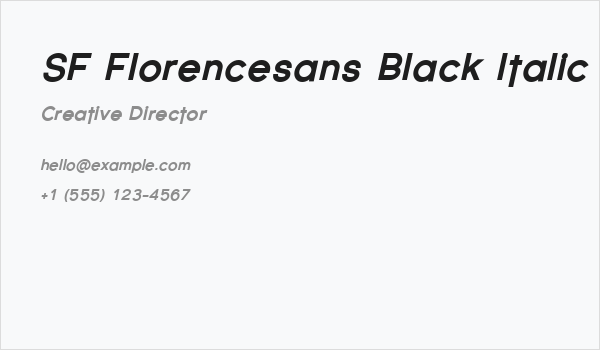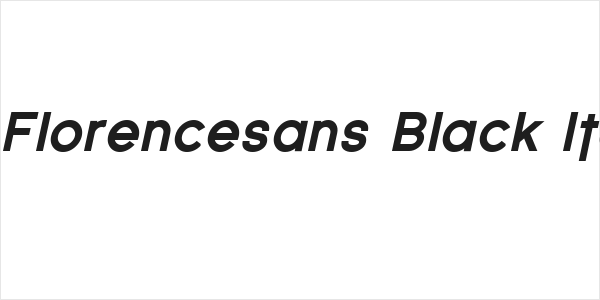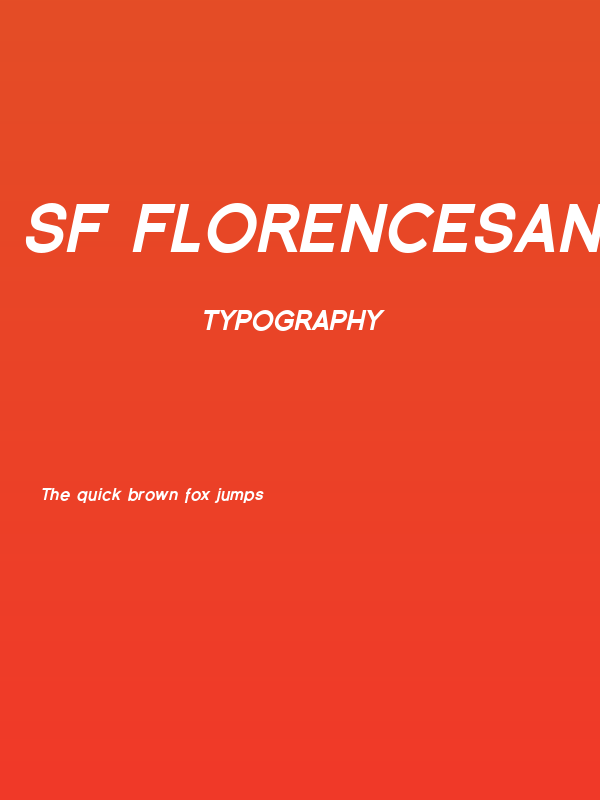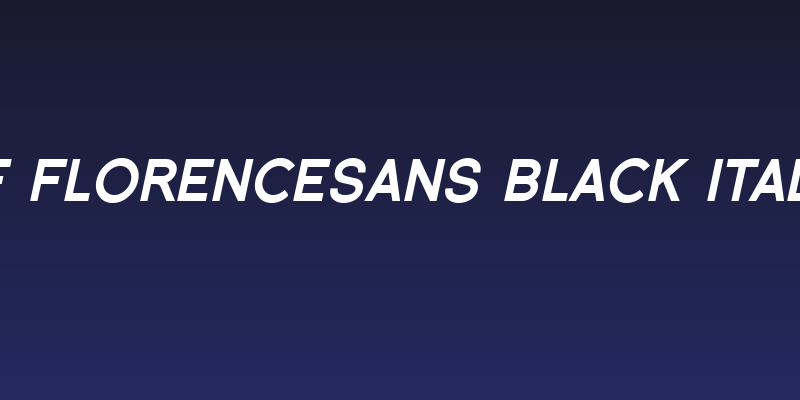
SF Florencesans Black Italic Font
SF Florencesans Black Italic Description
This font features a bold and italicized style with a modern and sleek appearance. The characters are slightly slanted, giving a dynamic and forward-moving feel. The strokes are thick and consistent, providing a strong presence on the page. The sans-serif design ensures clarity and readability, making it suitable for various digital and print applications. The numbers and special characters maintain the same boldness and style, ensuring uniformity across different uses. This font's overall aesthetic is contemporary and professional, ideal for making a statement.
| Proposed Projects | Ideal for branding, advertising, headlines, and digital media where a strong and modern impression is needed. |